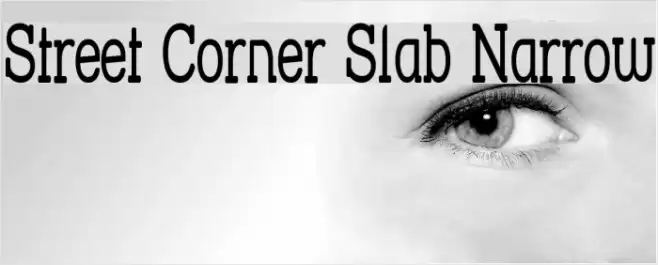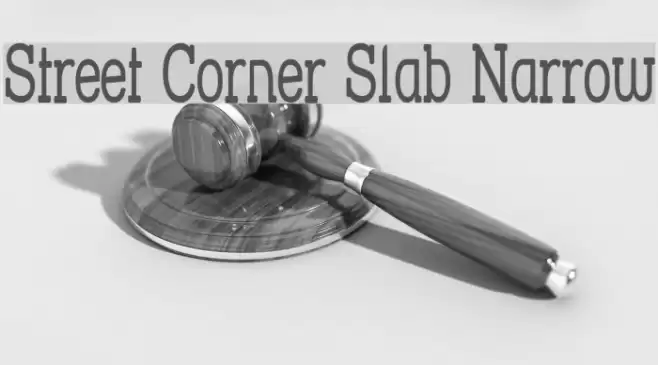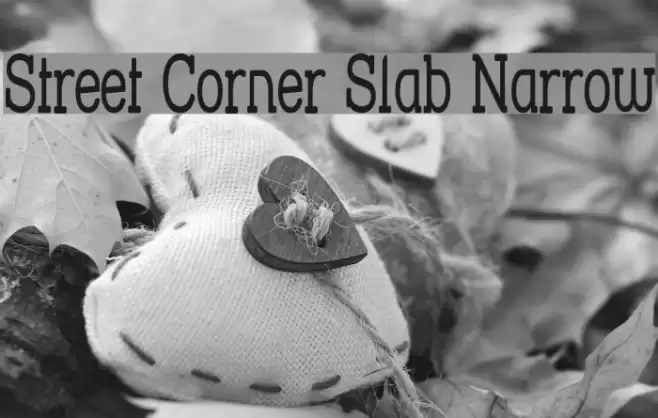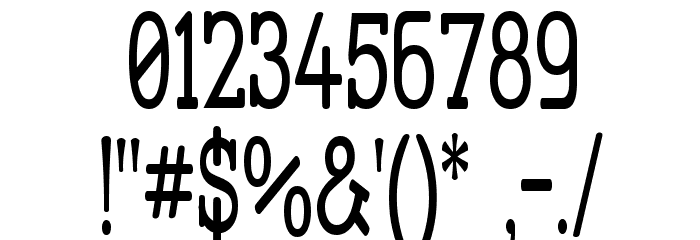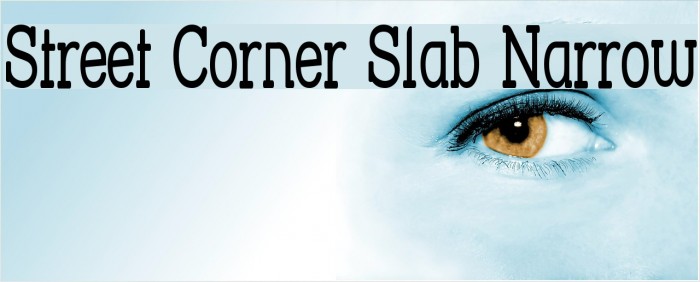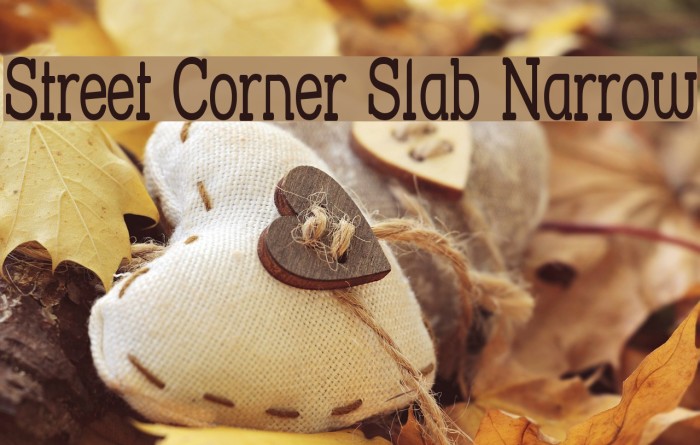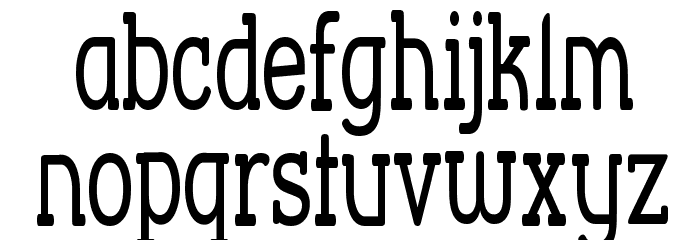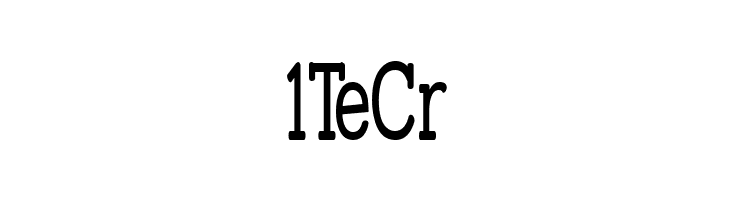
Street Corner Slab Narrow Font
Street Corner Slab Narrow Description
This font features a distinctive slab serif style with narrow proportions, giving it a unique and modern appearance. The characters are bold and well-defined, with a strong presence that makes them stand out. The uppercase letters are tall and commanding, while the lowercase letters maintain a consistent height, contributing to the font's uniformity. The numerals are clear and legible, making them suitable for various applications. The special characters are designed with the same attention to detail, ensuring they complement the overall aesthetic. This font's slab serifs add a touch of classic elegance, while the narrow width keeps it contemporary and versatile.
A bold, narrow slab serif font with a modern yet classic appeal from Serif fonts.
- Proposed Projects: Ideal for branding, signage, headlines, and editorial design where a strong, modern look is desired.
- Use Case: Headlines, Logos, Signage